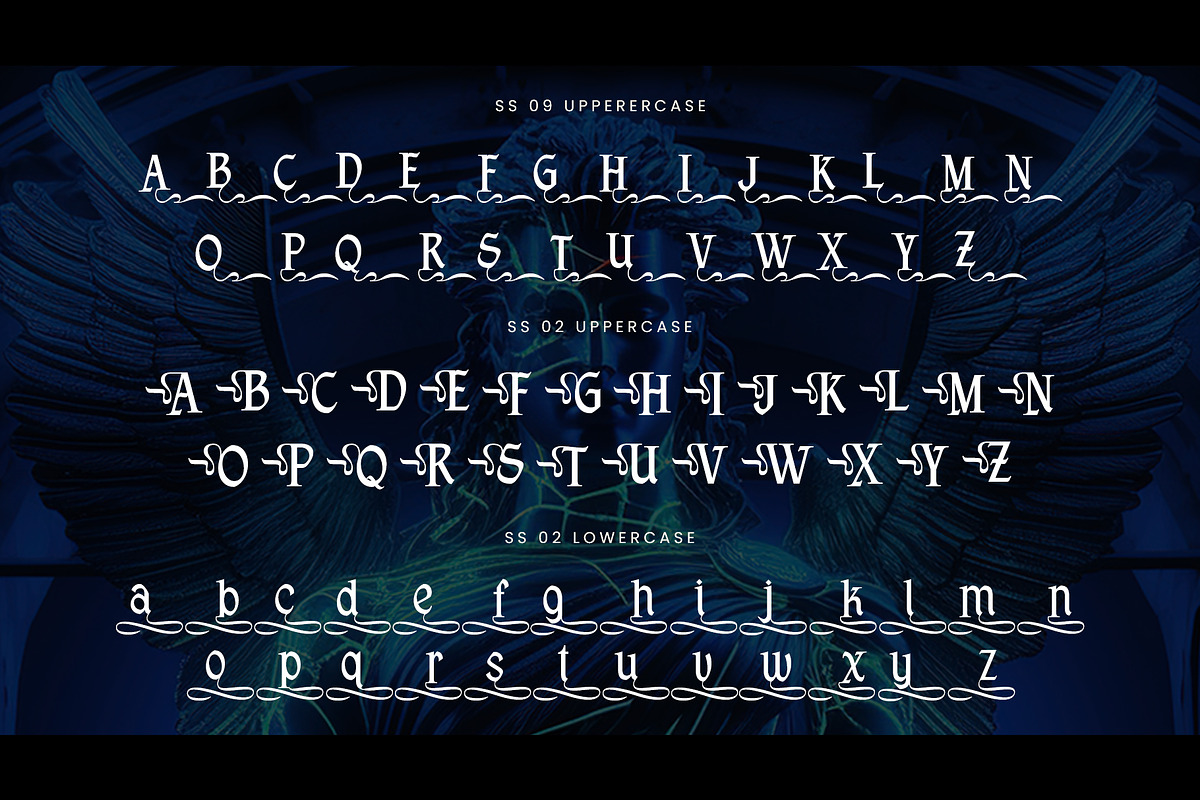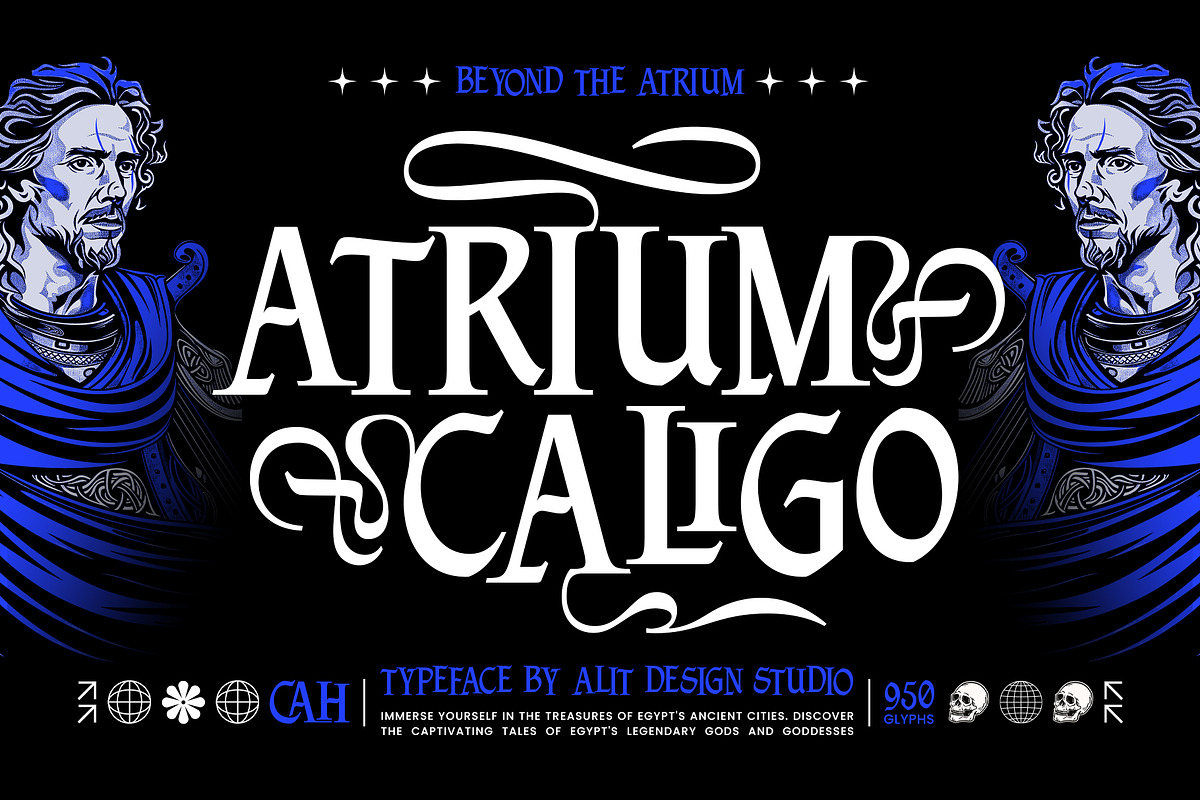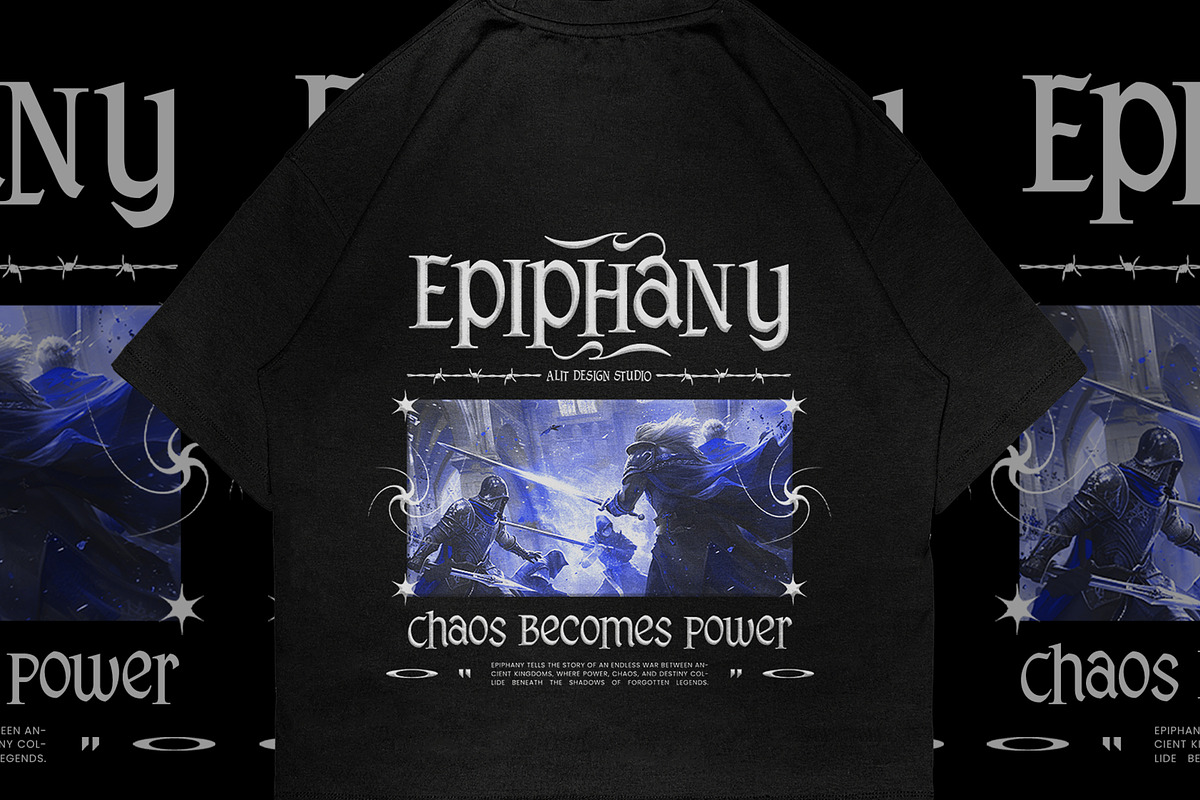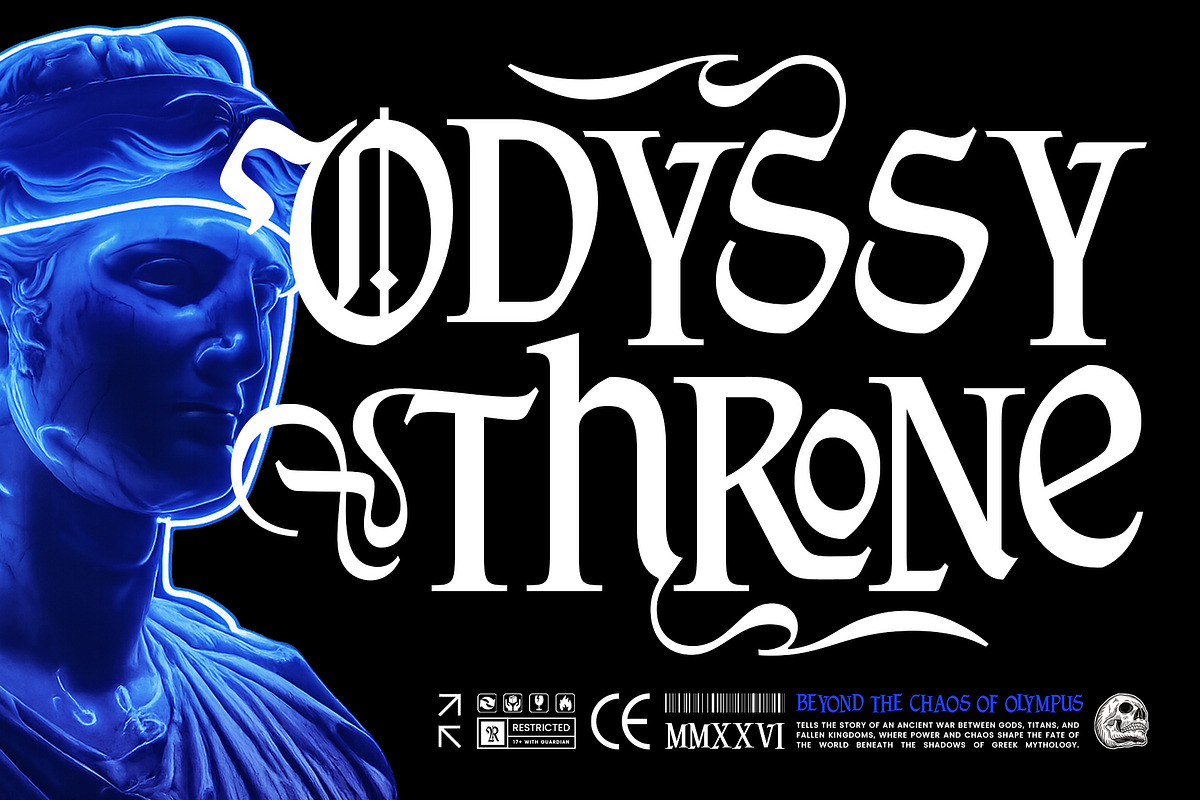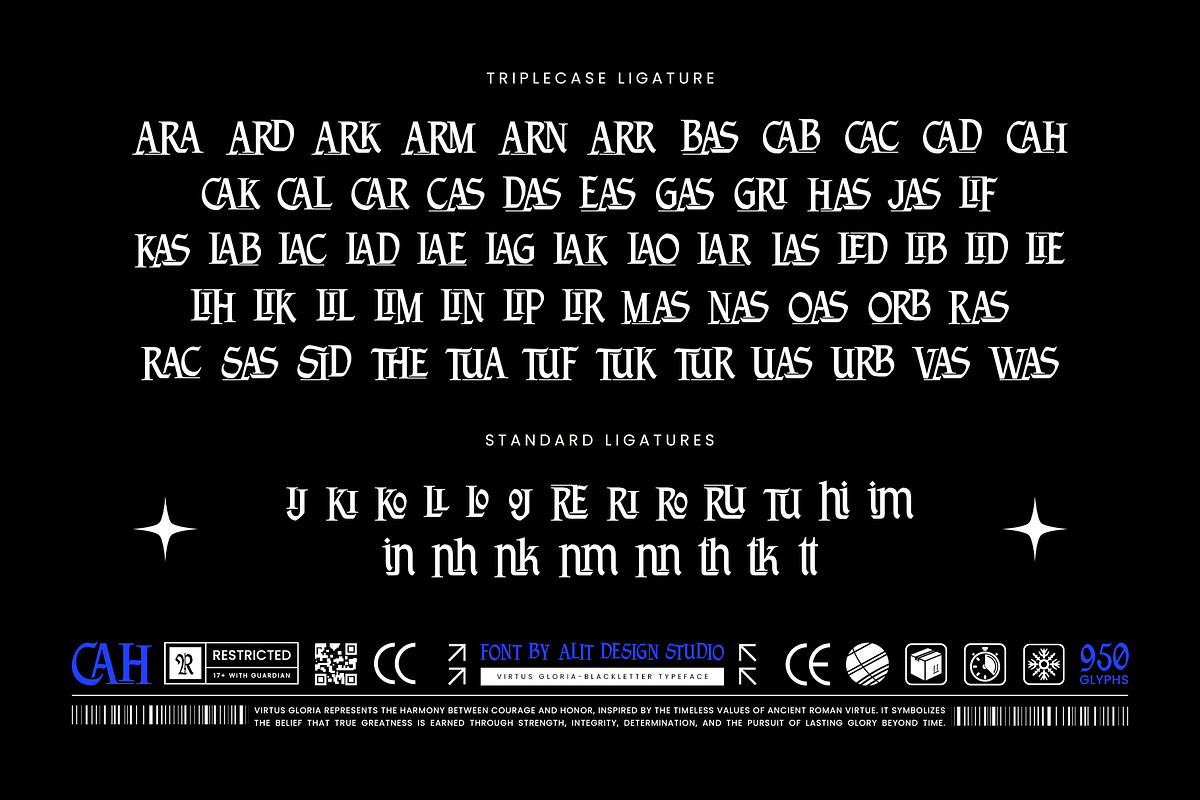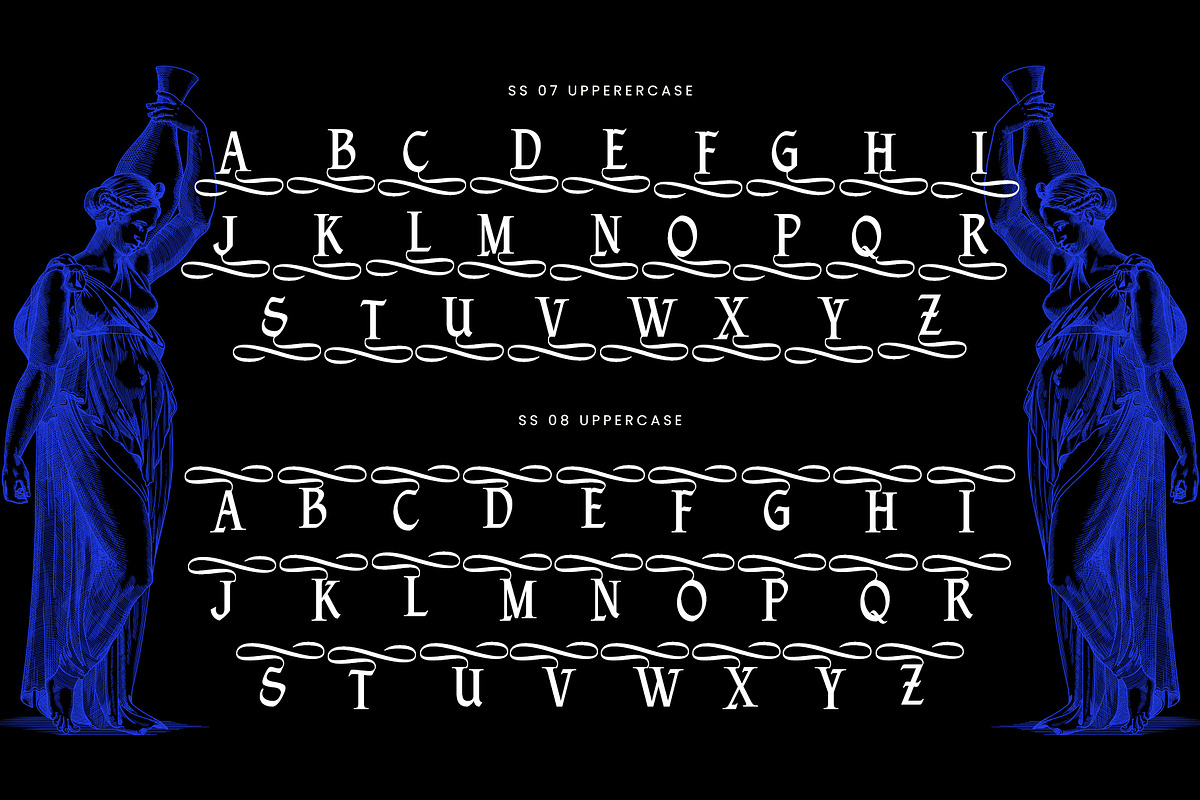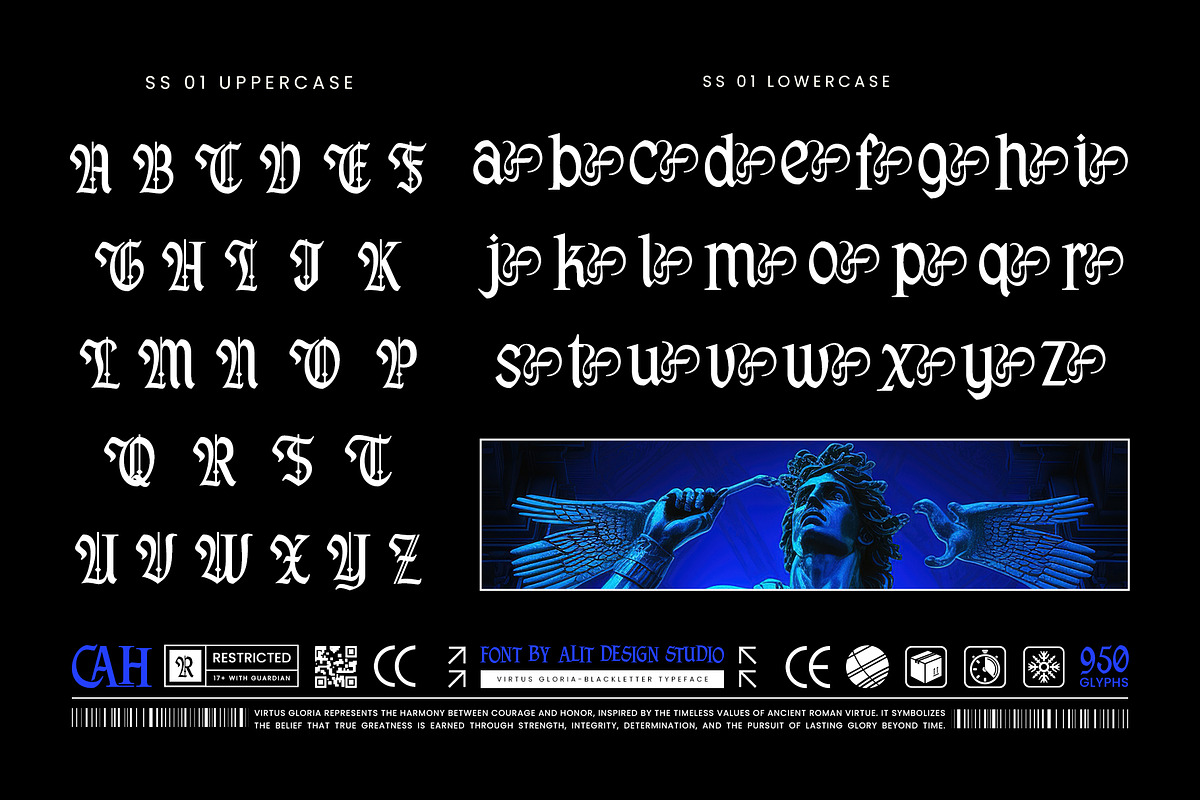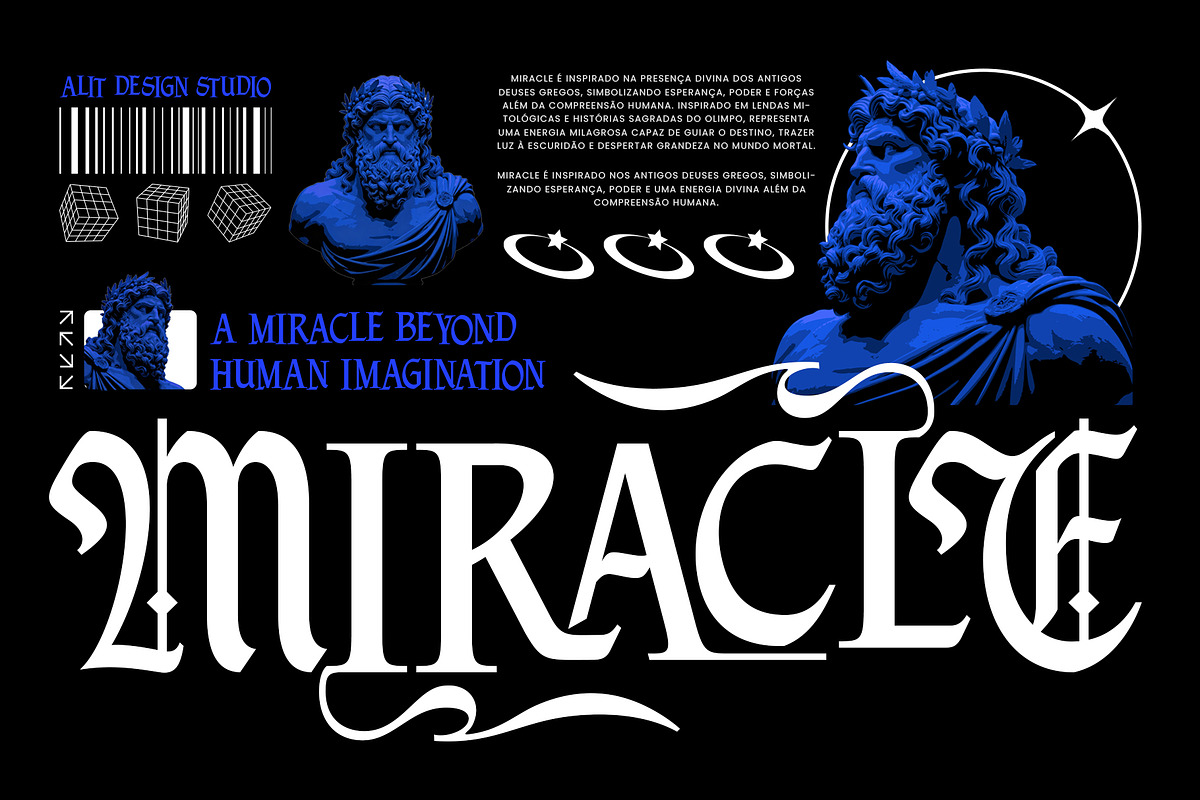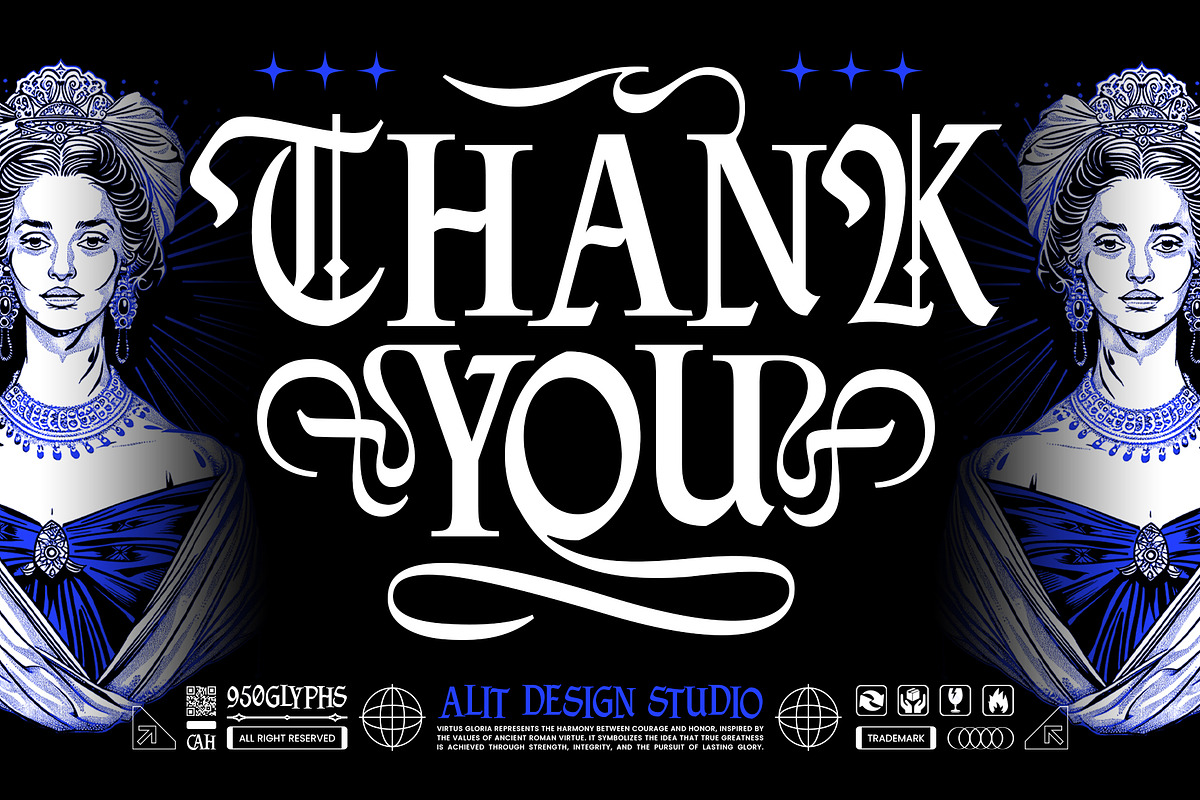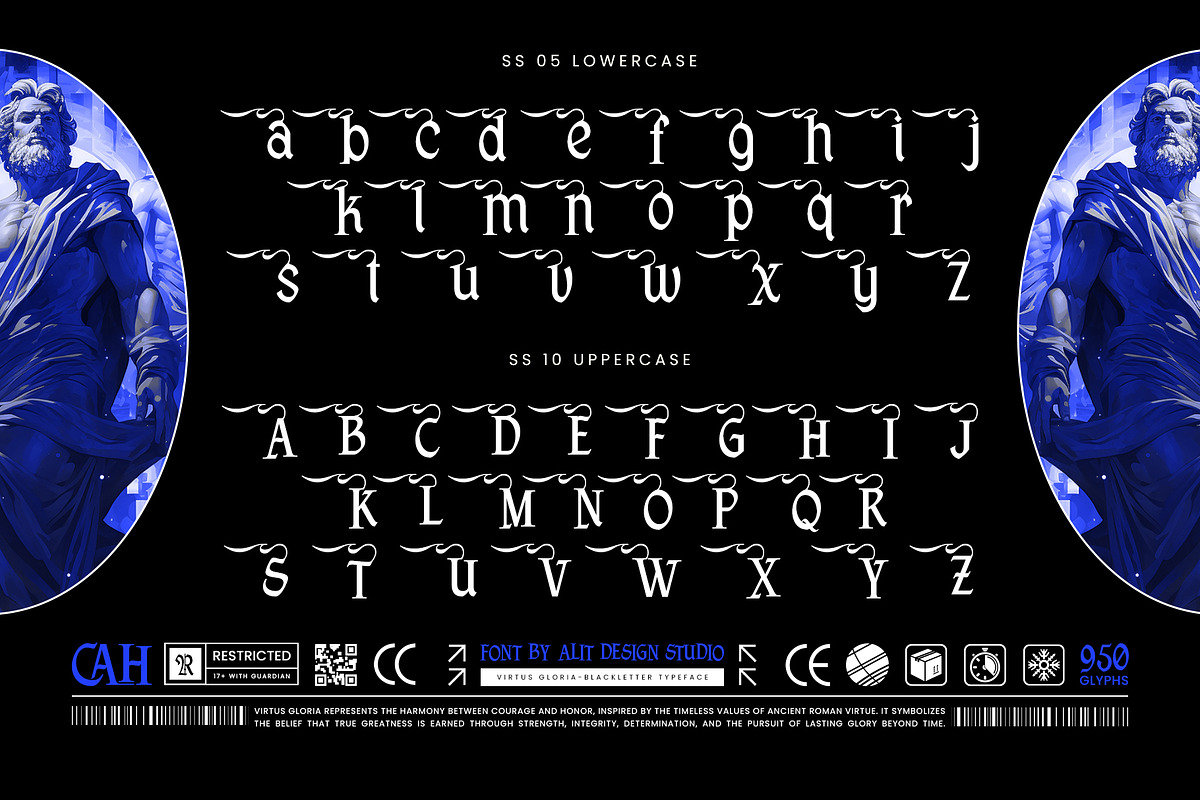
Virtus Gloria Typeface
Virtus Gloria – Epic Blackletter Display Typeface
Unleash the majestic fusion of ancient legacy and modern edge with Virtus Gloria, a powerful blackletter display typeface crafted for designs that demand authority, honor, and timeless elegance. Inspired by the timeless values of ancient Roman virtue and mythology, this font bridges the gap between classic medieval typography and contemporary street-chic aesthetics.
Virtus Gloria features a bold, sharp-edged structure beautifully balanced by intricate, sweeping swashes and dynamic stylistic alternates. Whether you are aiming for a gritty, dramatic look or a high-end luxury feel, this typeface adapts seamlessly, making it a masterclass in versatile typography.
With an expansive collection of 950+ glyphs, Virtus Gloria offers an elite level of customization. It is packed with unique standard and triple-case ligatures, elaborate flourishes, and multiple Stylistic Sets (from subtle extensions to dramatic, looping curls). This gives you the creative freedom to treat every single word as a custom piece of lettering.
Complete Alphabet: Full set of uppercase and lowercase characters, numerals, and comprehensive punctuation.
Massive Glyph Count: Over 950 glyphs for limitless design possibilities.
Abundant Ligatures: Includes standard ligatures and unique Triplecase Ligatures for flawless word flow.
Advanced Stylistic Sets: Multiple uppercase and lowercase alternate sets (SS01 - SS10) ranging from sharp, clean structures to heavily ornamented swashes.
Virtus Gloria is the ultimate choice for high-impact branding, epic book covers, movie posters, apparel design, merchandise, tattoo studios, luxury packaging, music album art (especially metal, rock, or dark synth genres), gaming logos, and any project that needs a touch of heroic, dramatic grandeur.
Bring power, prestige, and untamed glory to your typography toolkit with Virtus Gloria.